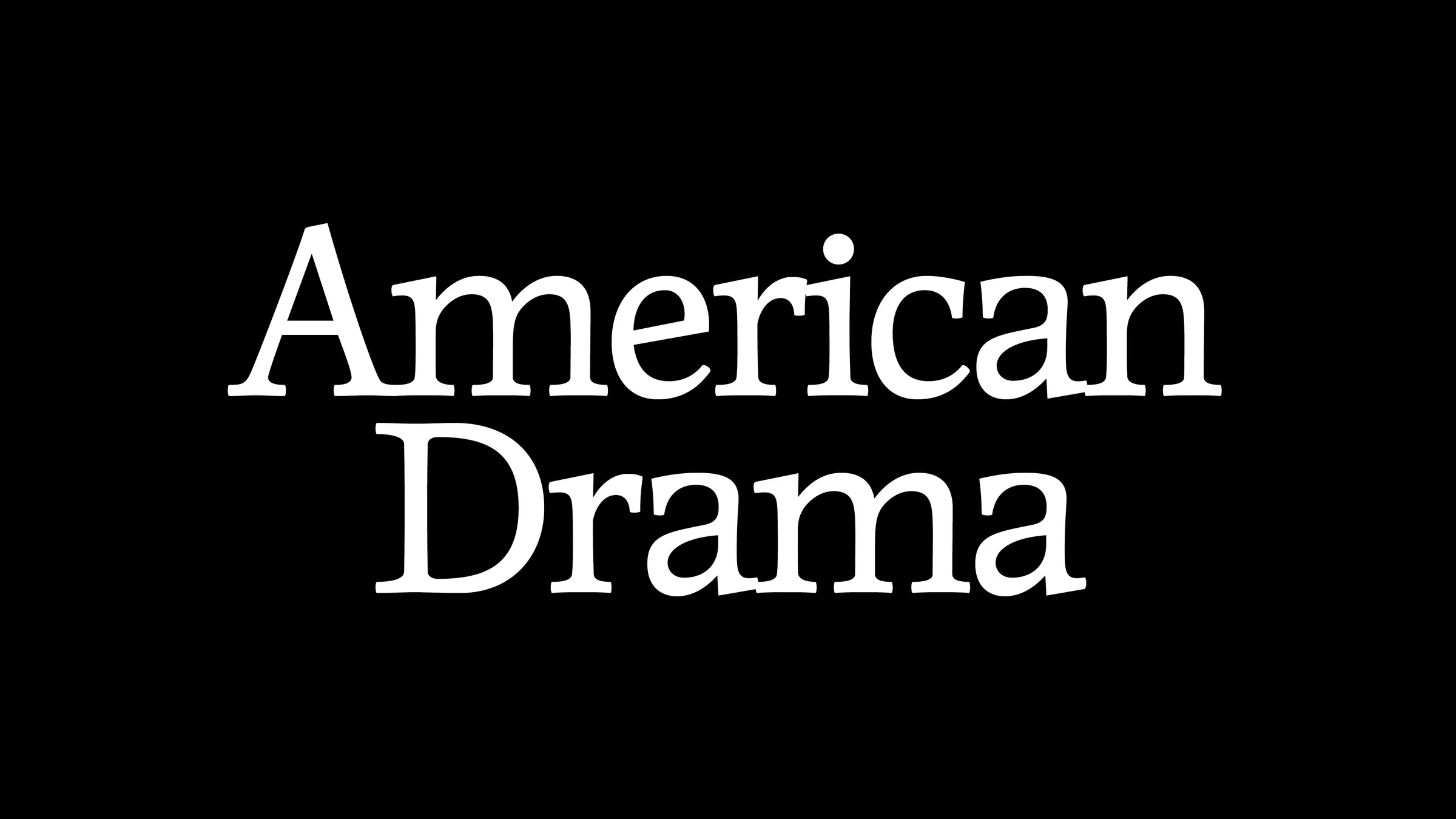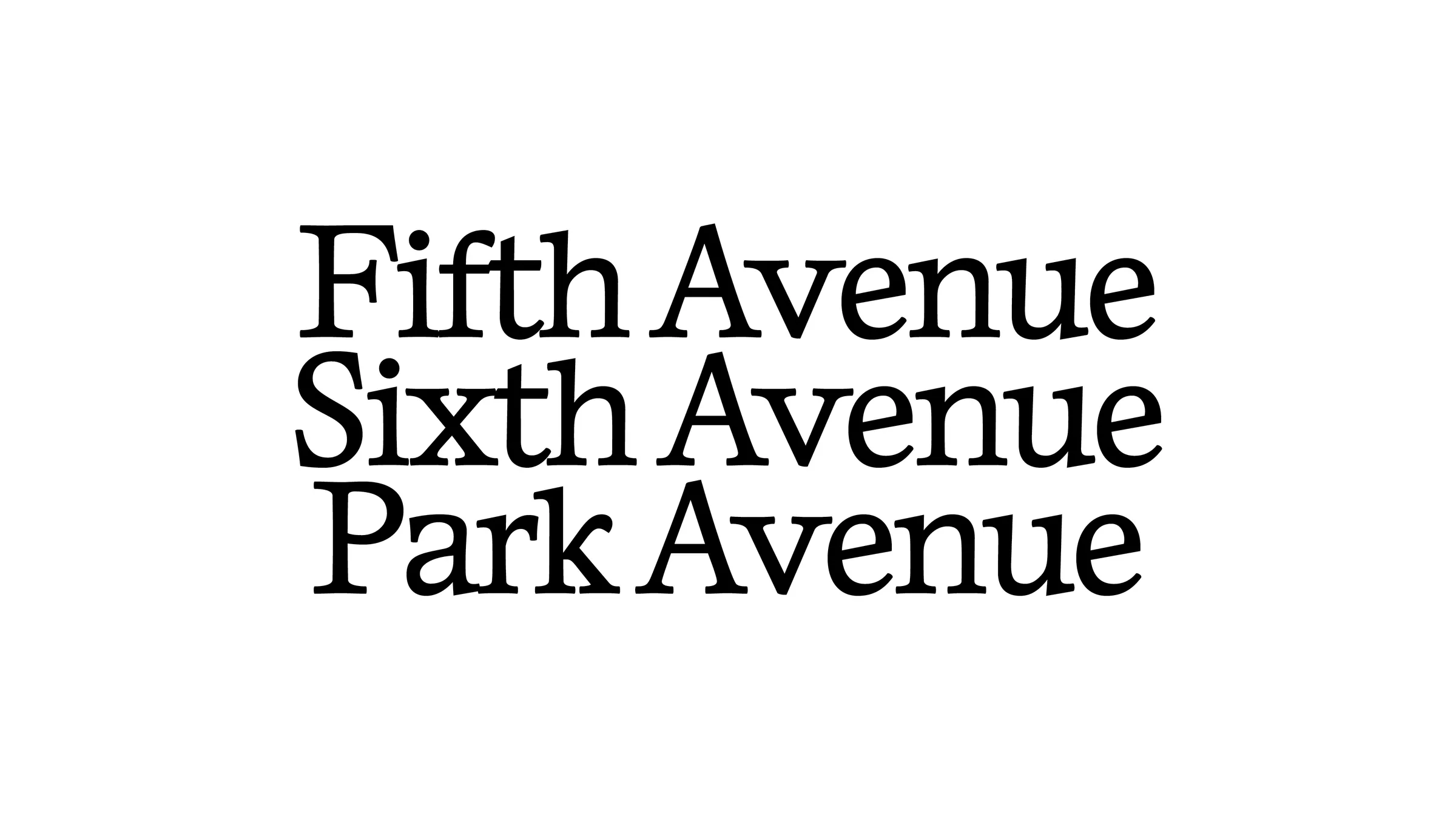
New Burns is the result of a research project on the heritage of ITC (International Typeface Corporation), a New York foundry founded in 1970 that was a major player in the international photographic composition market for several decades. This project looked at the origins of this foundry and the impact it had on the market, both through its economic system (revolutionary for its time) and its formal impact on many typographic designers around the world through the ITC 'style' that appeared in many European typefaces designed at the time. New Burns is a tribute to Aaron Burns, one of the co-founders of ITC with Herb Lubalin and Edward Rondthaler. It is a rather organic and robust serif typeface, characterised by a generous x-height and low contrast. Its use is of course much more effective with close spacing and line spacing.